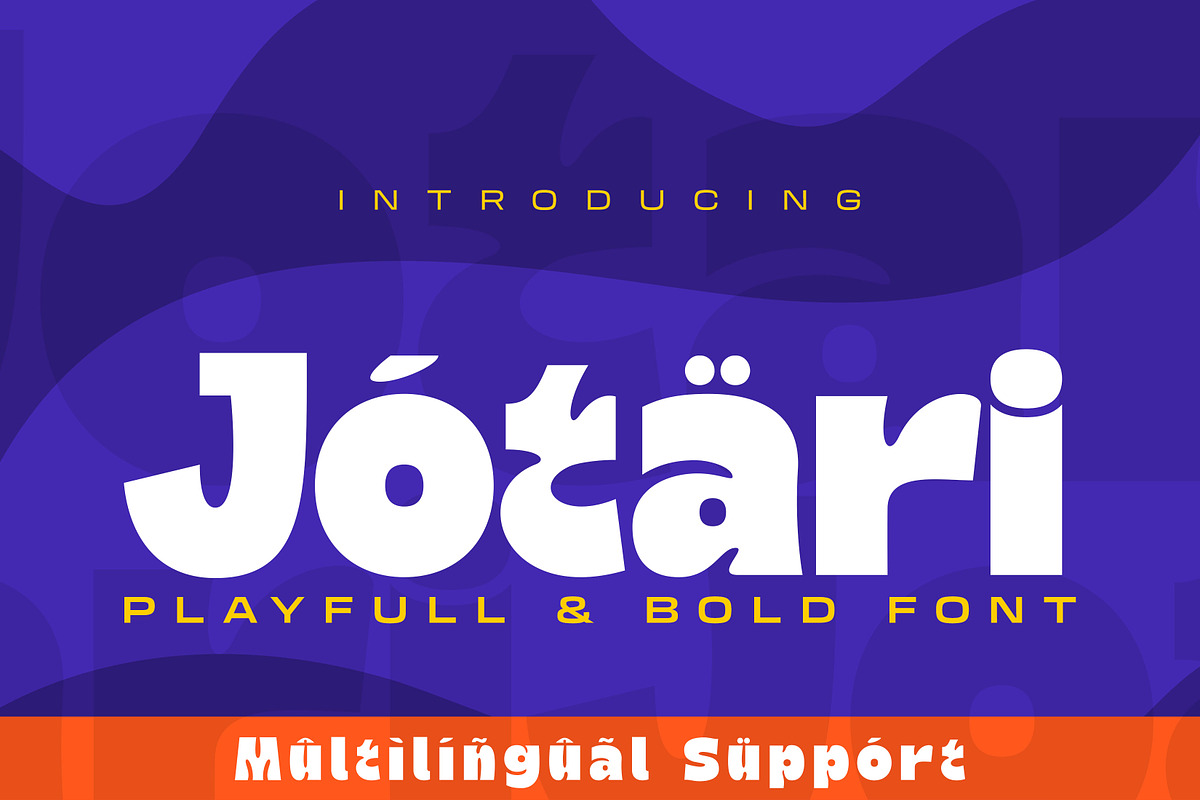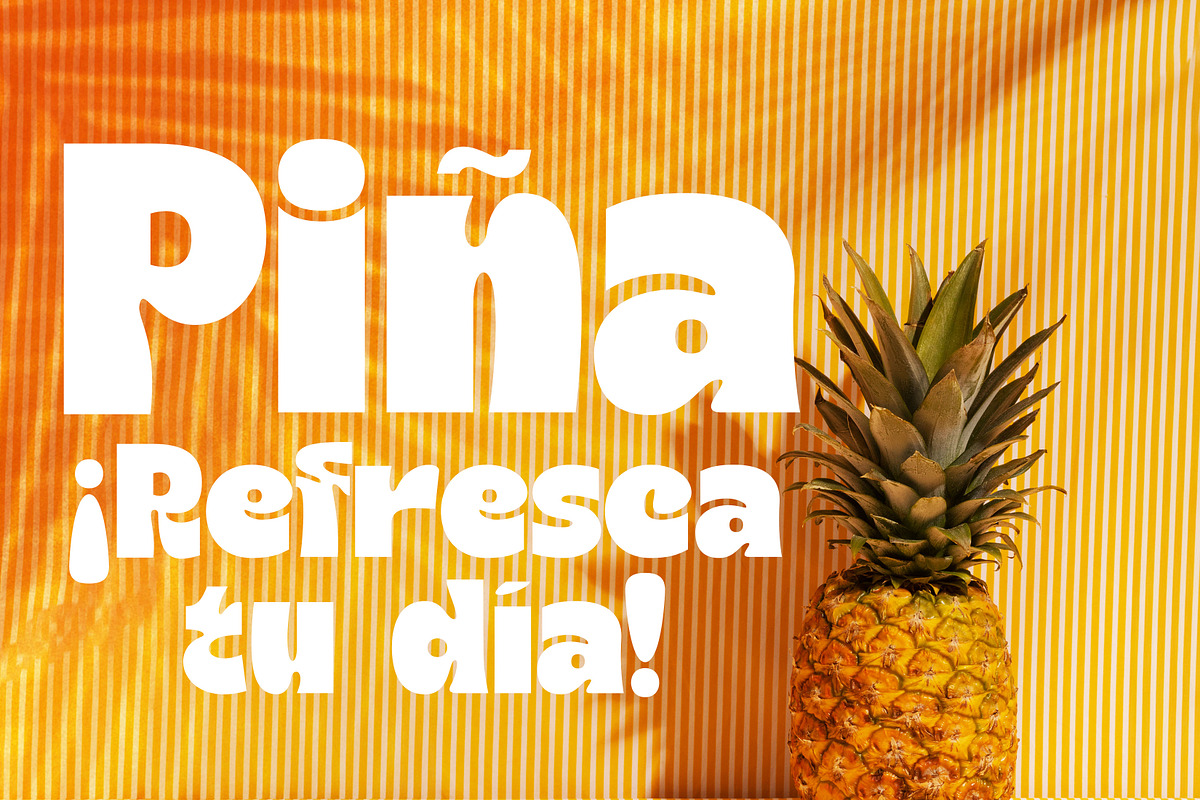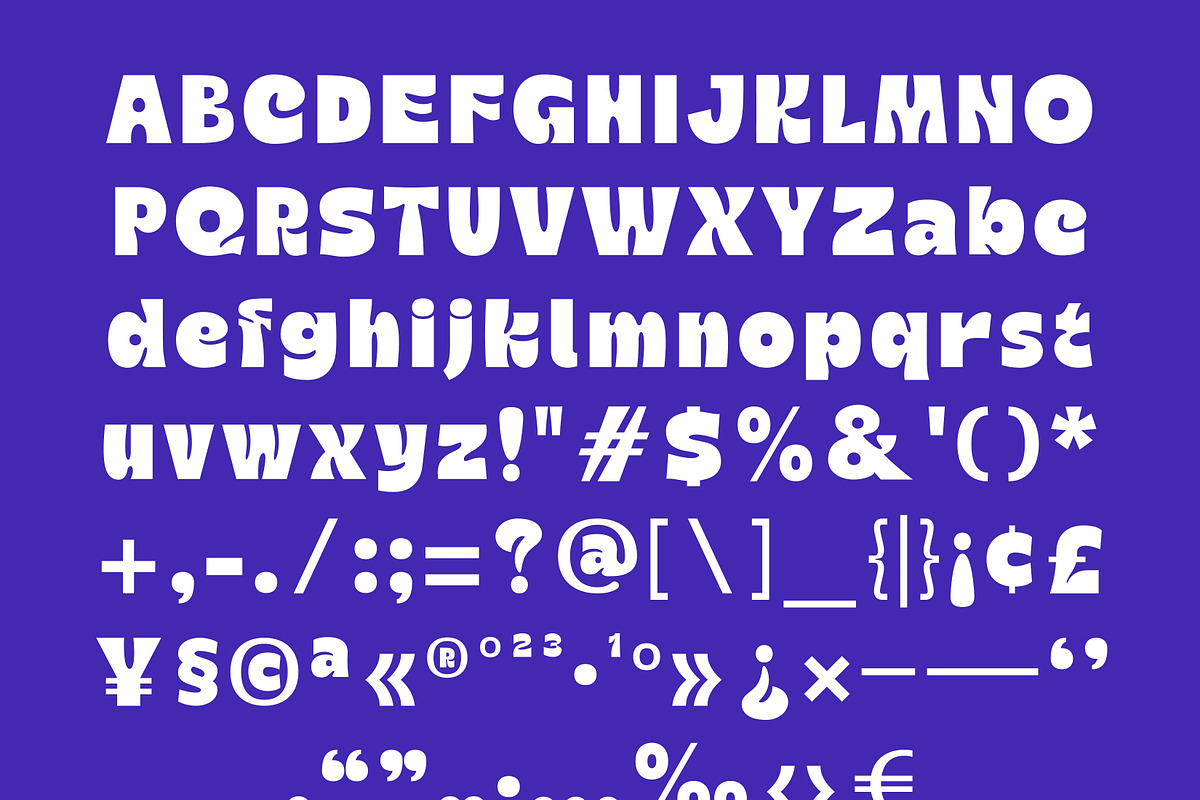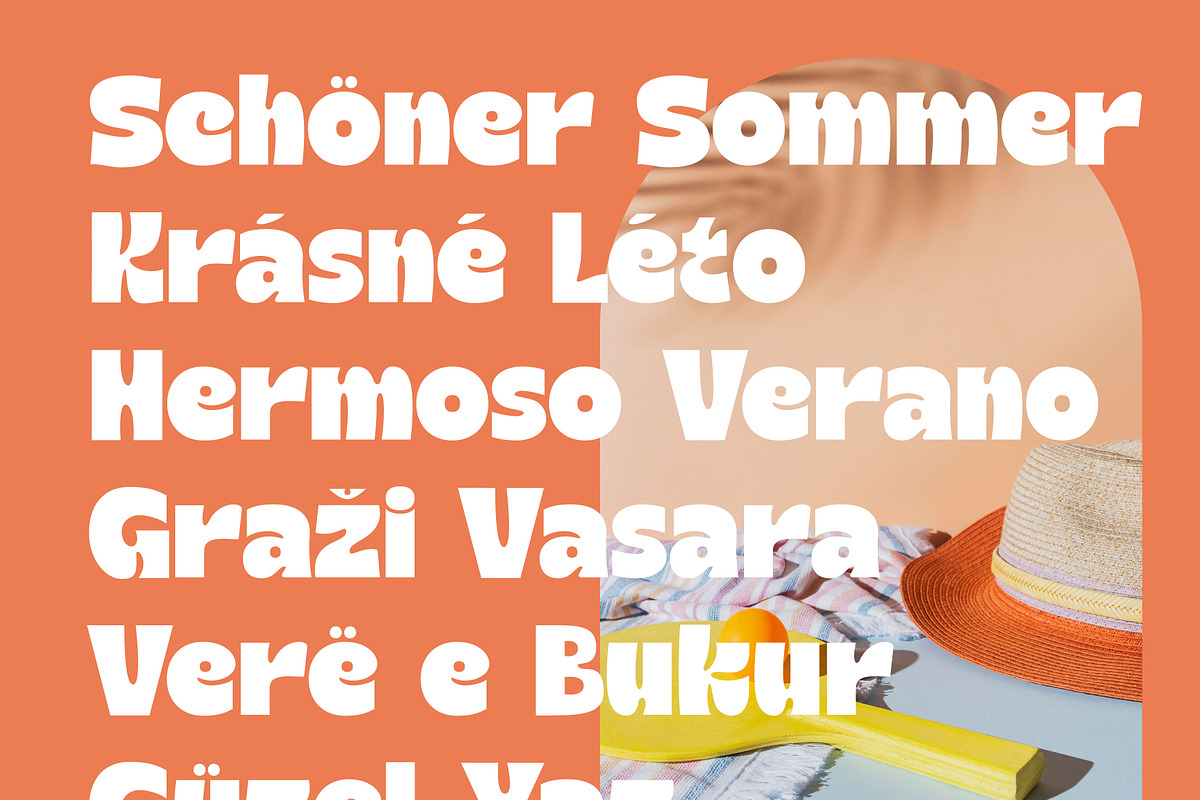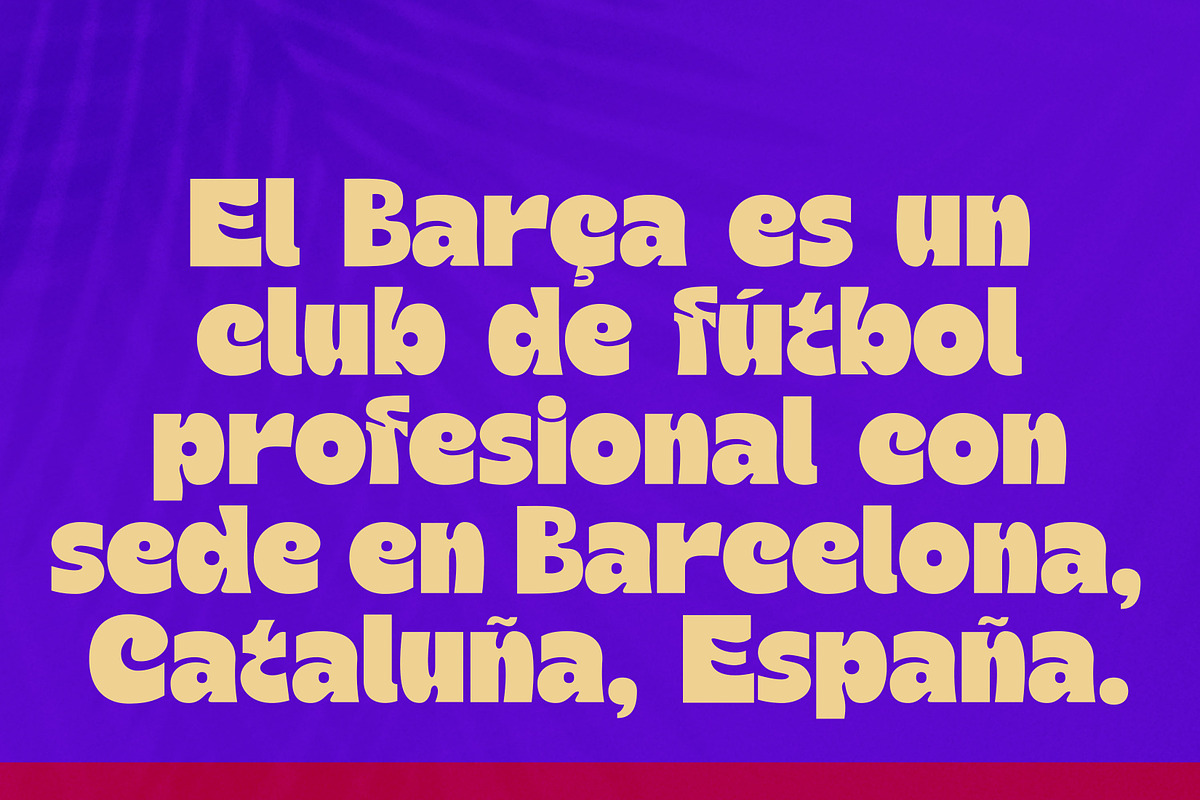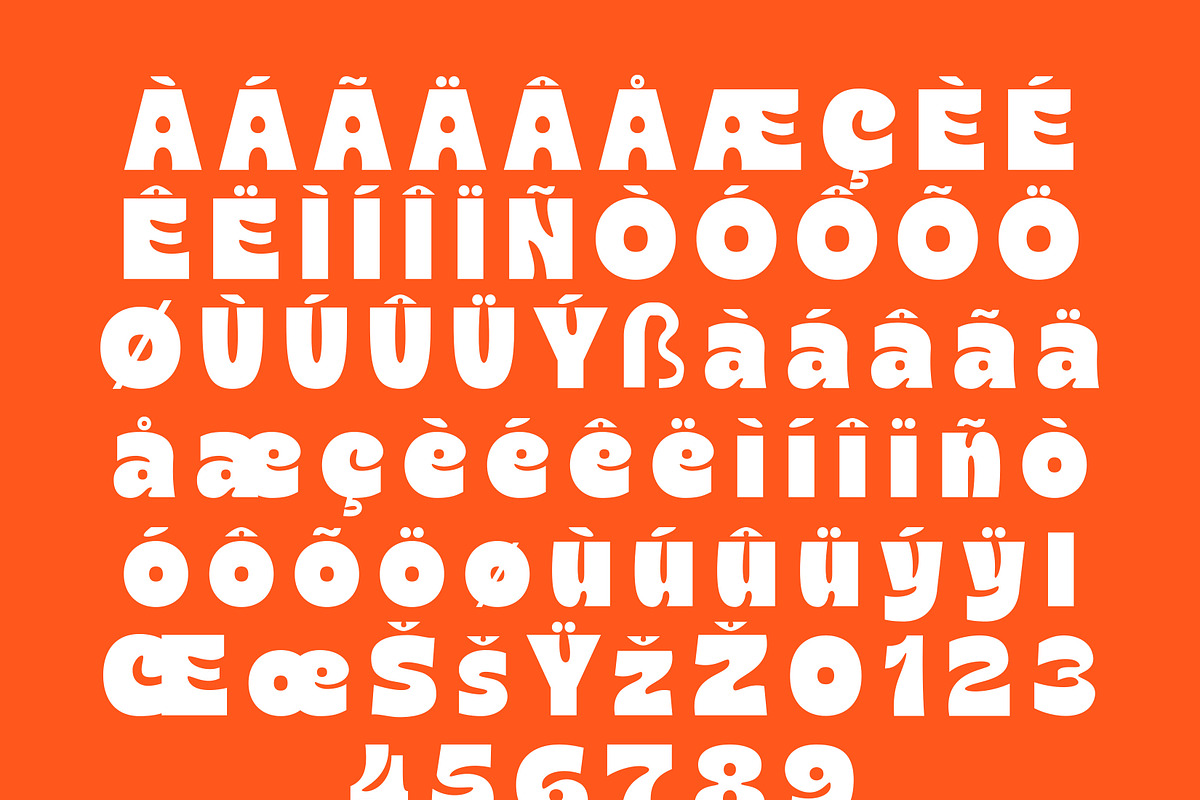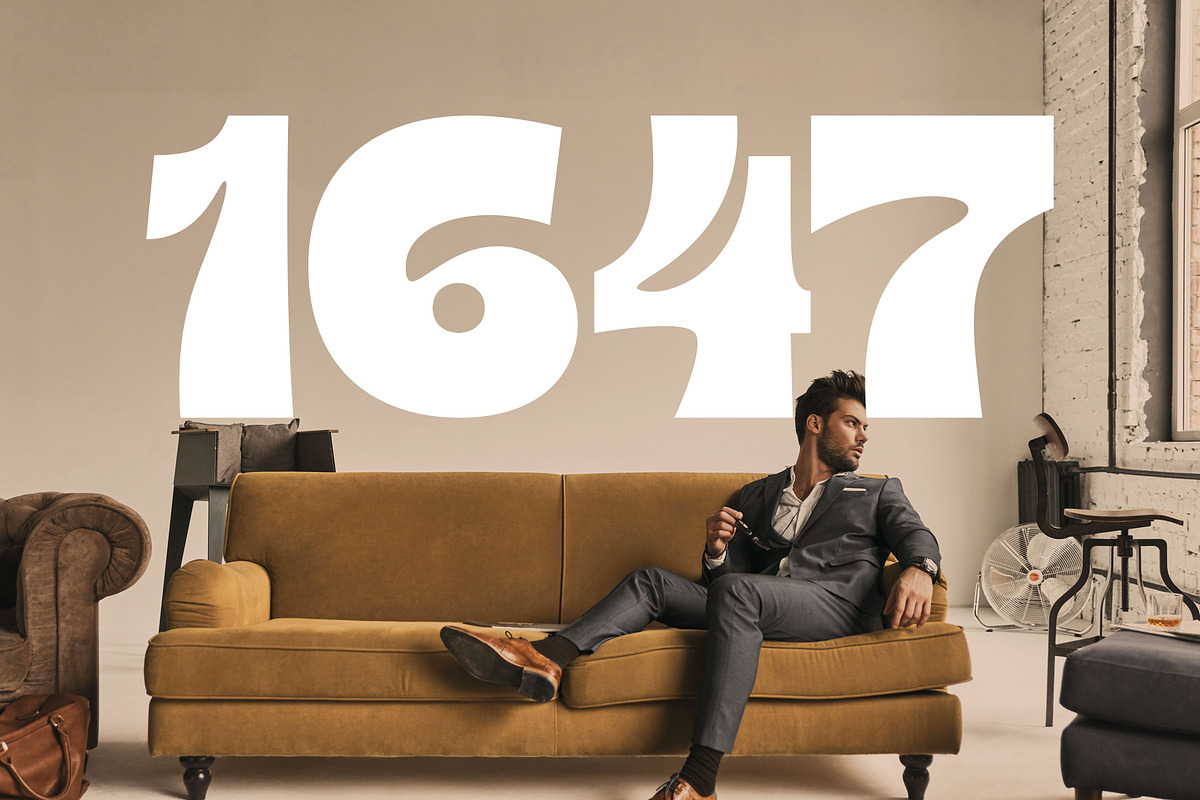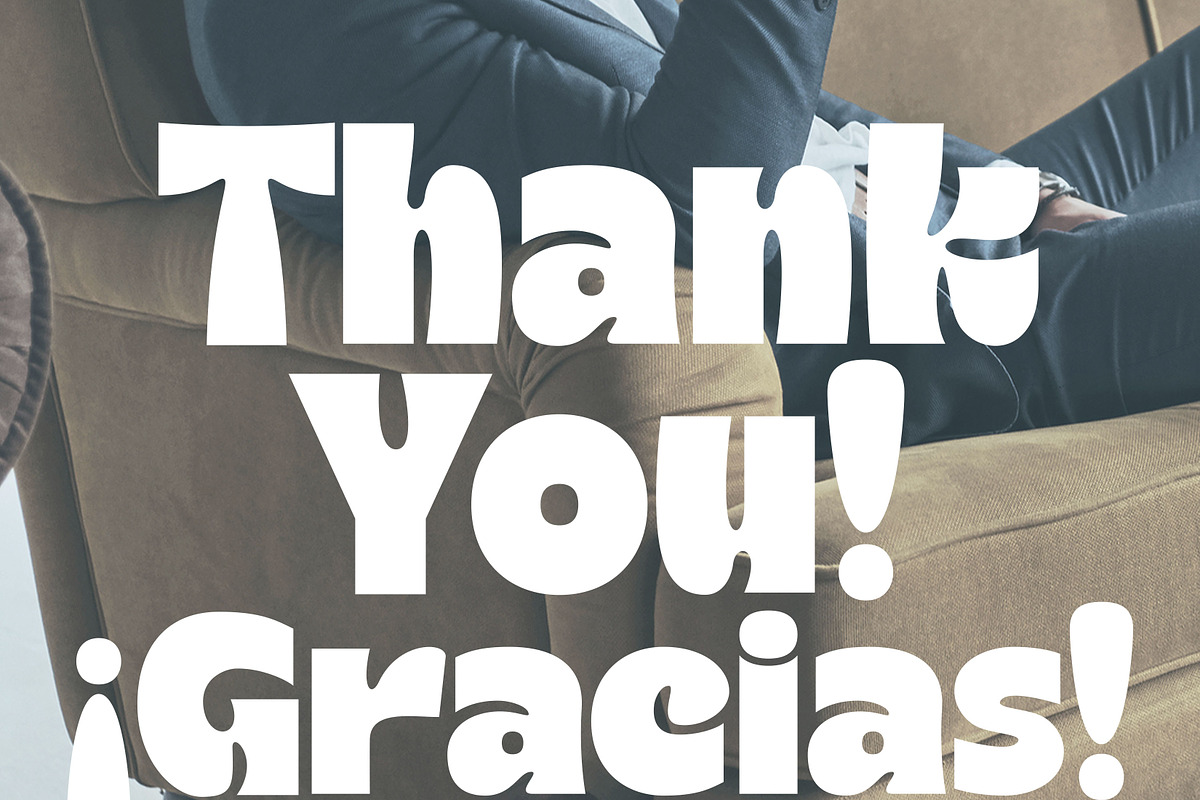
Jotari - Playfull Bold Font
Jotari is a playfull and bold font with a unique character designed by Morisco Studio. This typeface is well-suited for headlines and any project, like branding, print templates, logos, and more.
Symbols & Punctuation